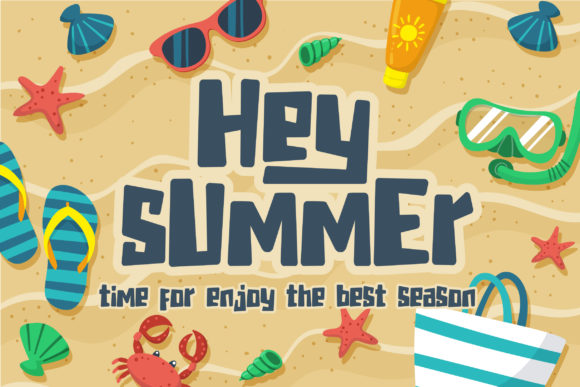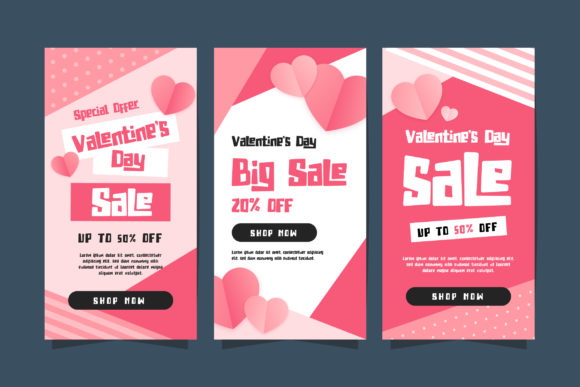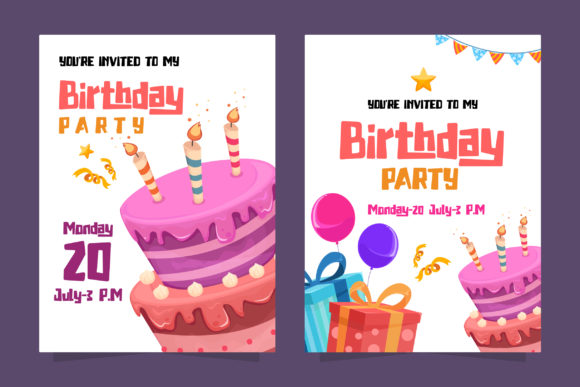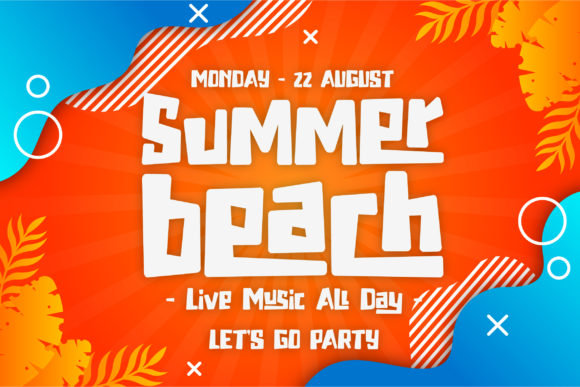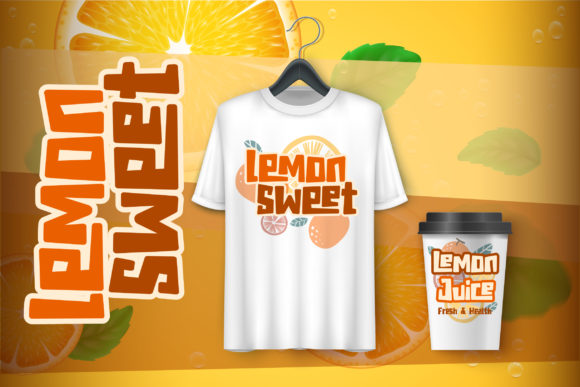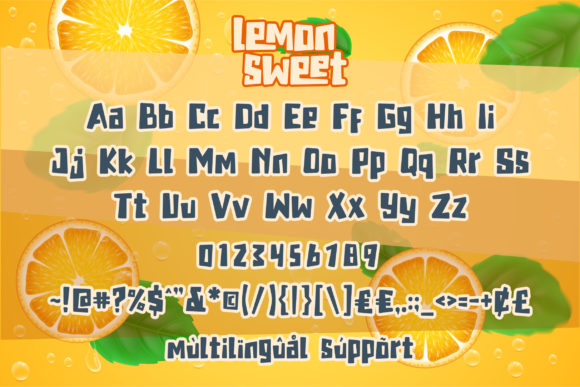
Introduction to Lemon Sweet Font
Have you ever found yourself staring at a blank canvas, struggling to bring your creative vision to life? For designers, this moment can be both exhilarating and daunting. But what if you had the perfect tool to unlock your imagination and give your project the edge it needs? Enter the Lemon Sweet Font, a quirky and chunky display font that’s about to become your new go-to design resource.
With its unique blend of smooth and sharp elements, the Lemon Sweet Font is the perfect addition to any design project. Whether you’re working on a high-quality brochure, a creative campaign, or even just a fun social media graphic, this font is sure to bring a touch of personality to your work. And the best part? It’s free to download, so you can experiment with it without breaking the bank.
As a valuable asset in any designer’s toolkit, the Lemon Sweet Font offers a transparent background, making it easy to layer and customize to your heart’s content. Its high-quality design ensures that your work will stand out from the crowd, and its versatility makes it a must-have for any creative project.
Key Features of Lemon Sweet Font
- Unique, hand-drawn design with a playful and whimsical feel, making it perfect for creative projects.
- Resolution-independent design ensures that the font looks great at various sizes and resolutions, from small web graphics to large-scale print materials.
- Perfect for use in logos, branding materials, advertisements, and other creative projects that require a unique and eye-catching font.
Honest Review: Lemon Sweet Font
As a designer, I’m always on the lookout for new design resources to add some creativity to my projects. The Lemon Sweet Font caught my eye recently, and I decided to give it a try.
- What works well: ✨ The font is highly customizable, making it perfect for a wide range of creative projects. I loved the fact that it comes with a transparent background, which allows for seamless integration with any design.
- What works well: ✨ The font is of high quality, with crisp and clear lines that make it perfect for both digital and print designs.
However, there are some limitations to consider: ⚠️ The font may not be suitable for large-scale projects due to its limited character set. Additionally, some users may find the font a bit too playful for more professional projects.
Overall, I’m impressed with the Lemon Sweet Font and would definitely recommend it for designers looking for a high-quality, free download font to add some creativity to their projects. Just be aware of the limitations and use it accordingly.
The Lemon Sweet Font is ideal for a variety of design projects, including wedding invitations, birthday party graphics, and social media promotions.
Its high-quality design and transparent background make it a versatile resource for designers and non-designers alike.